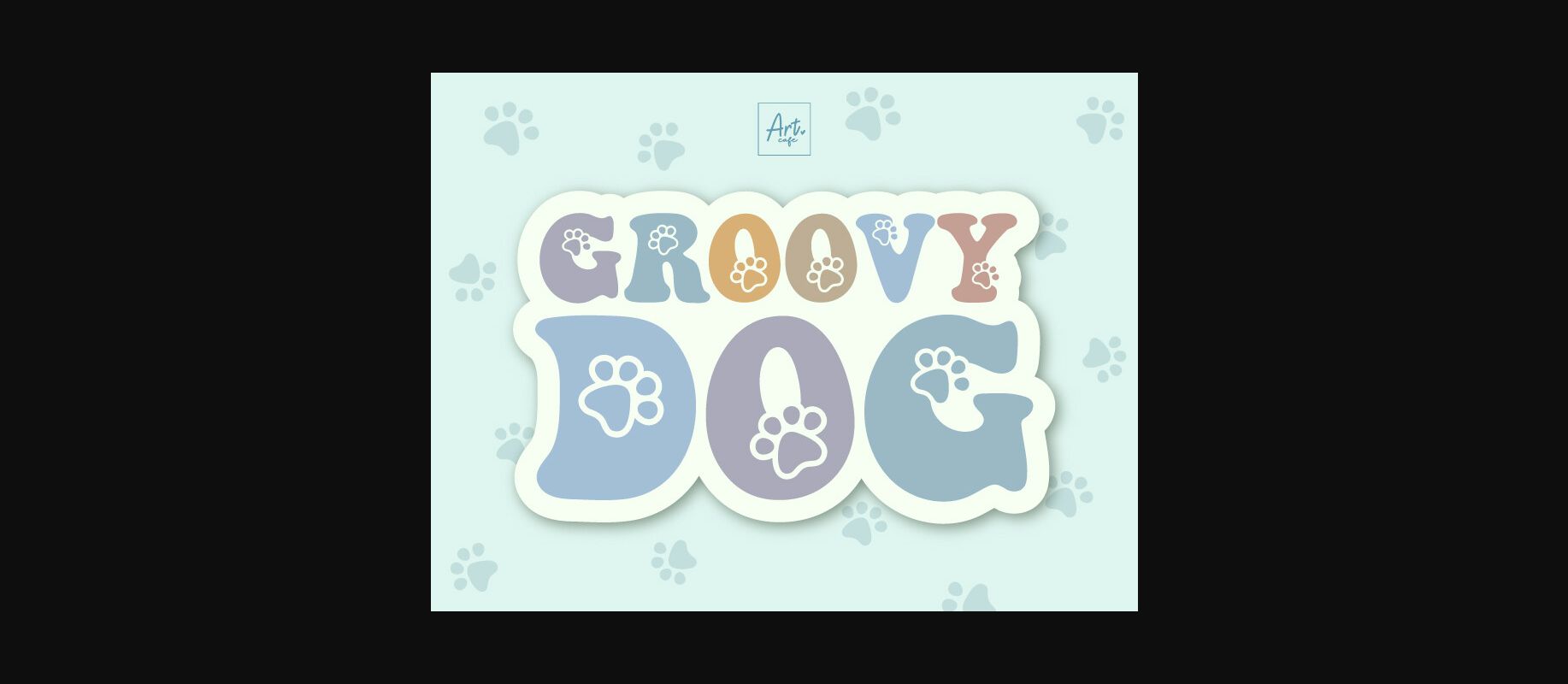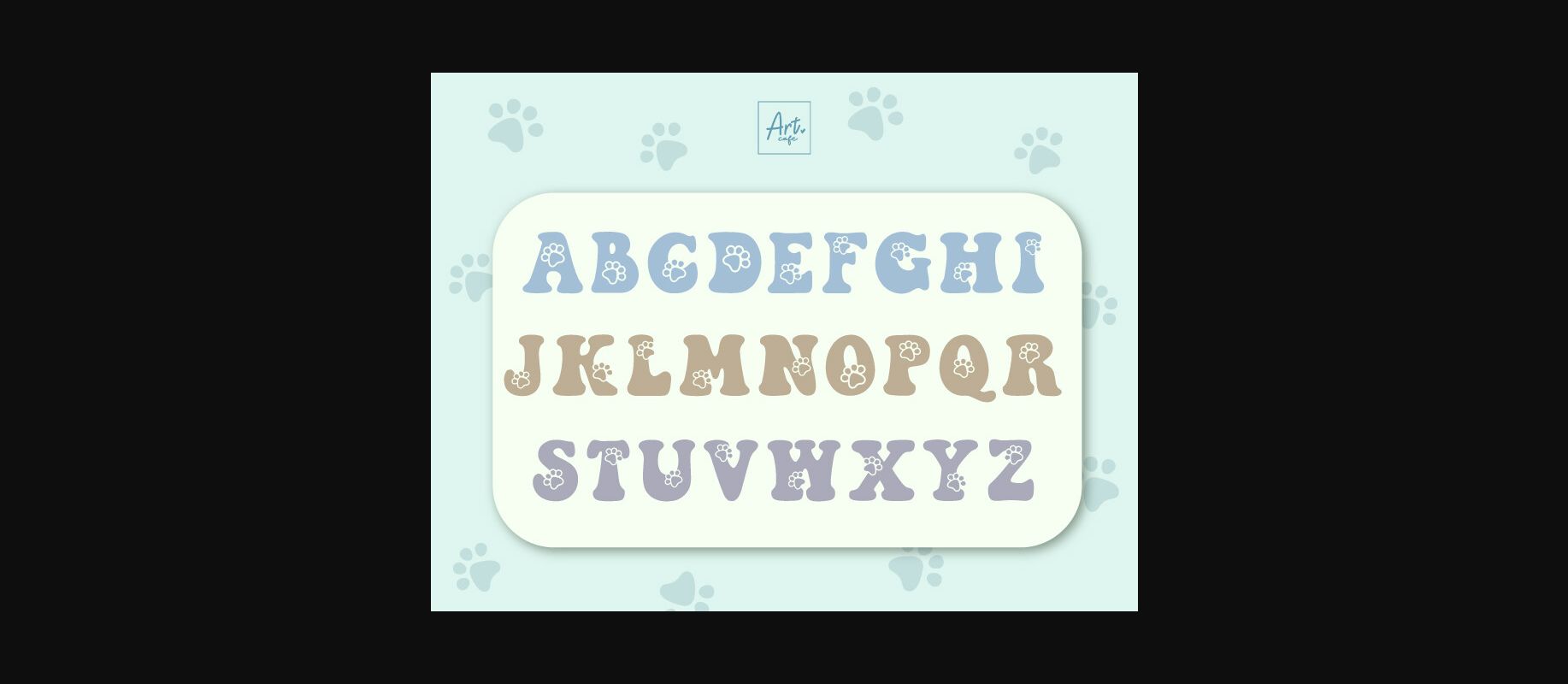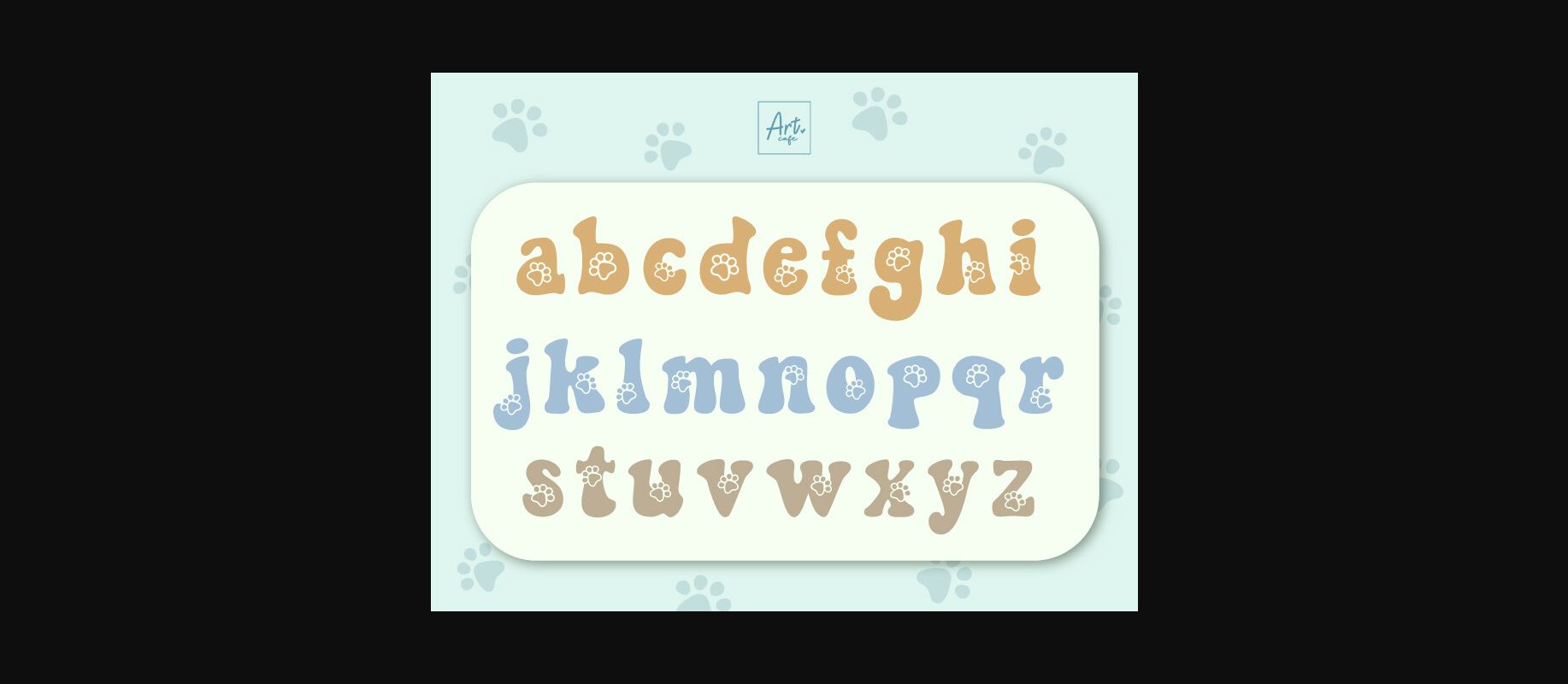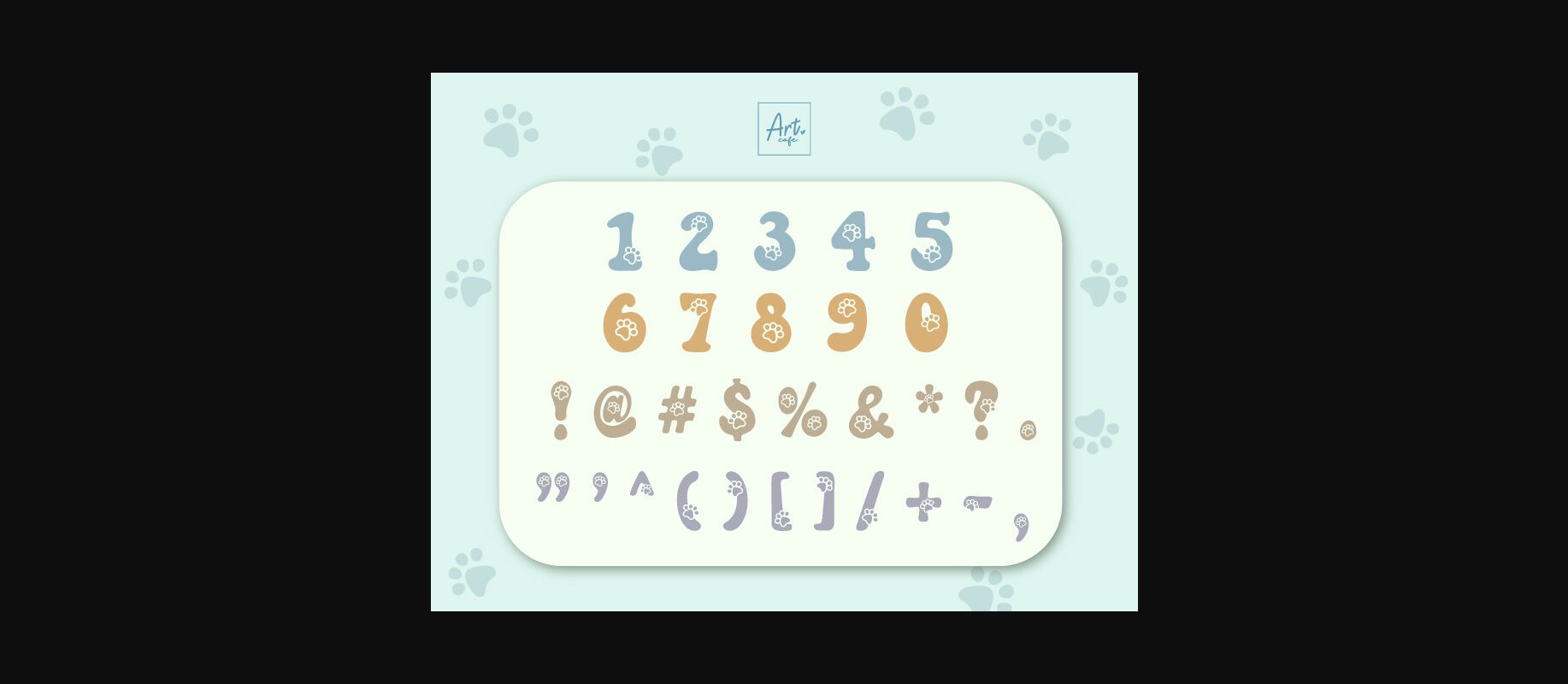
About Groovy Dog Font
Unleash your love for pets with Groovy Dog, a retro font featuring a tasteful fusion of nostalgic style and adorable paw prints from our four-legged friends. This unique typeface, embellished with charming prints of dog and cat paws, resonates with both dog and cat aficionados. Groovy Dog transcends the ordinary, giving a playful, vintage flair to your typography needs. Ideal for pet lovers who value a nostalgic touch, Groovy Dog transforms simple text into paw-sitively delightful designs.